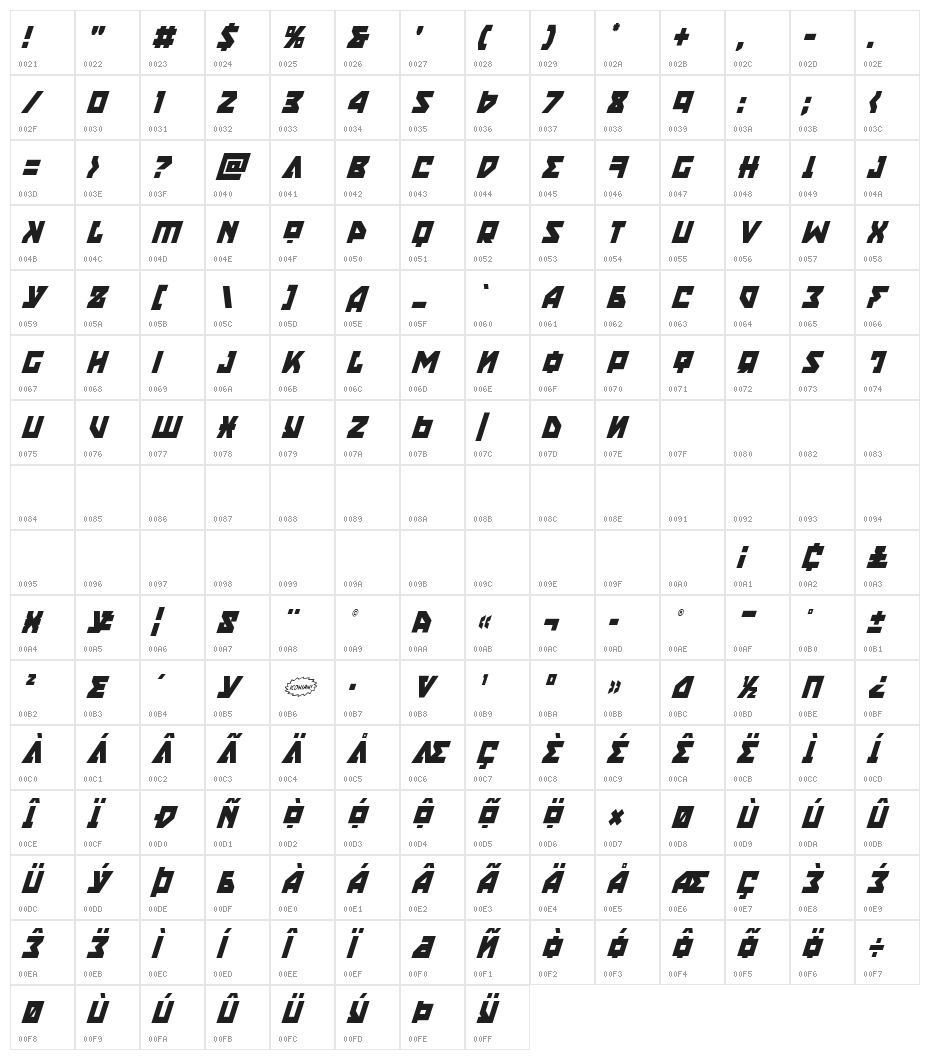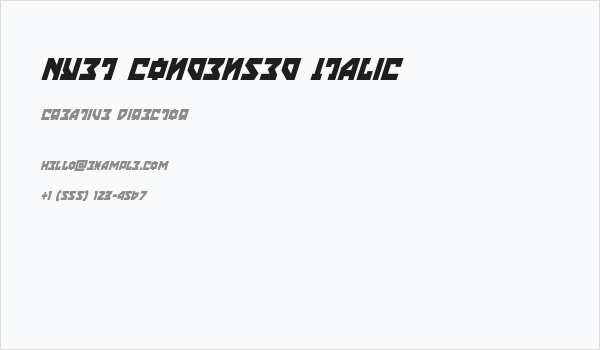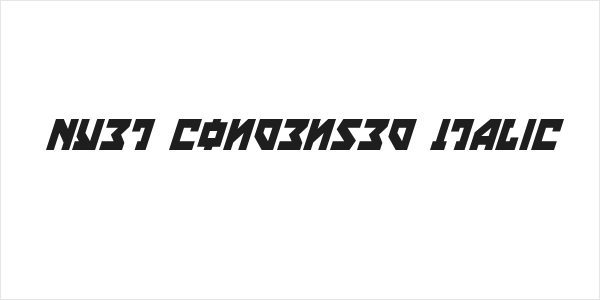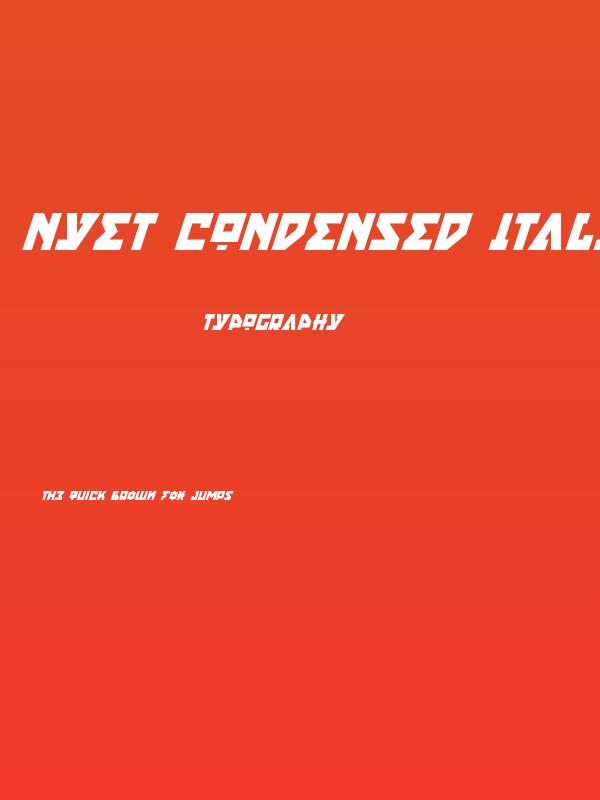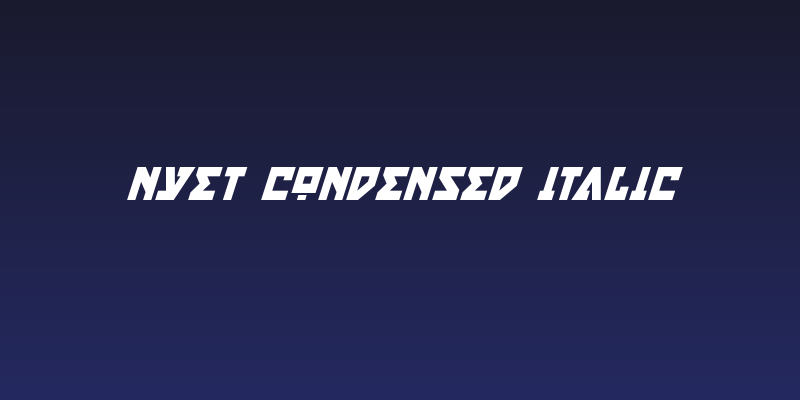
Nyet Condensed Italic Font
Nyet Condensed Italic Description
This font features a bold and dynamic design with a distinctly angular and geometric style. The characters are sharply cut, giving them a futuristic and edgy appearance. The italic slant adds a sense of motion and speed, making it ideal for projects that require a modern and energetic look. The condensed width of the letters allows for efficient use of space, making it suitable for headlines and titles where impact is essential. The high contrast between the thick and thin strokes enhances the boldness of the font, ensuring it stands out in any design.
Proposed ProjectsIdeal for sports branding, tech-related designs, video game titles, and dynamic posters.